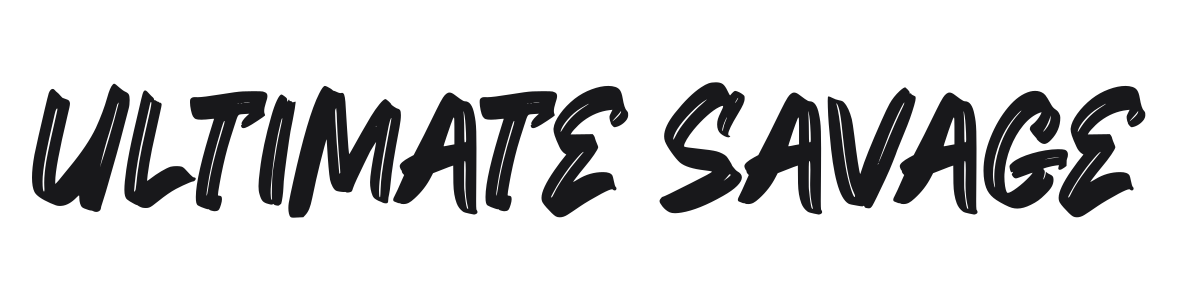
Ultimate Savage
Ultimate Savage is a heavy brush script with rough, textured strokes and a steep forward lean that radiates raw energy. The ragged edges and high stroke contrast give it an authentically handmade quality, somewhere between street art and marker lettering. Built for impact at large sizes in sports branding, streetwear, and bold editorial work.